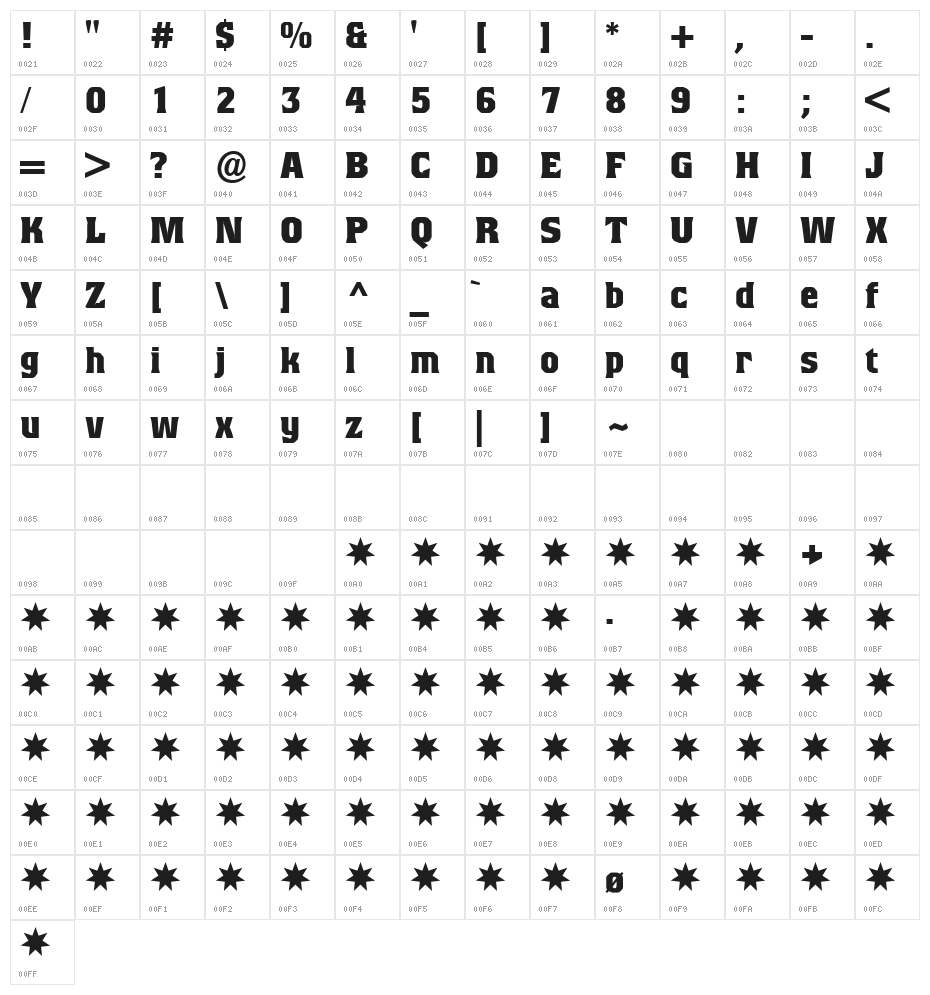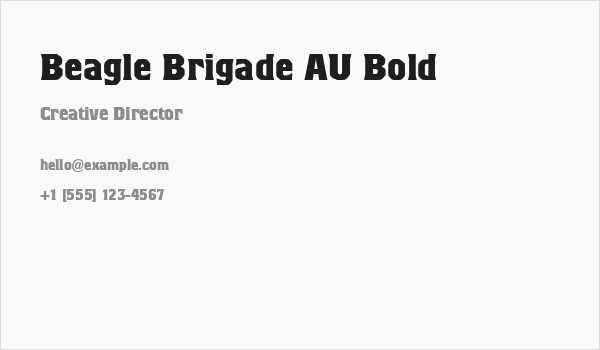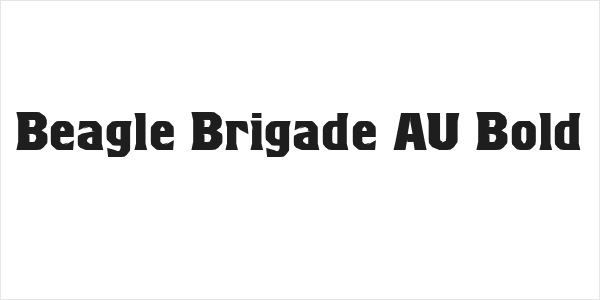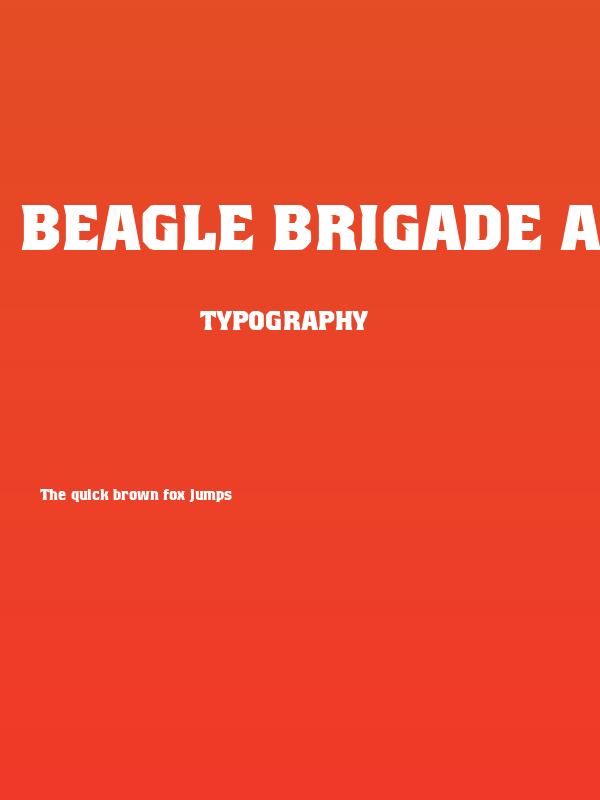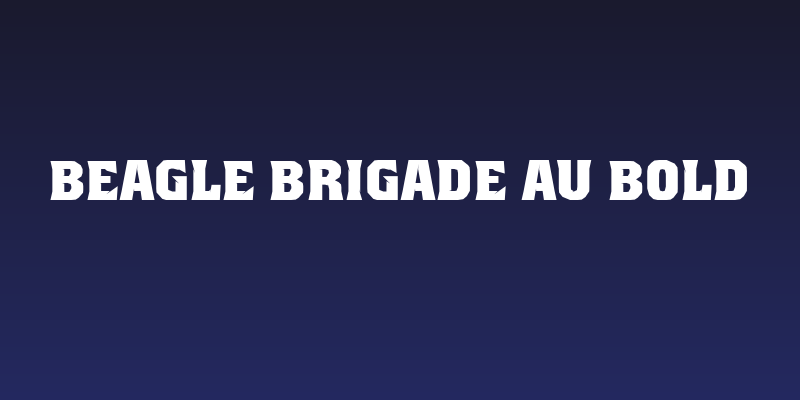
Beagle Brigade AU Bold Font
Beagle Brigade AU Bold Description
This bold and striking font features thick, angular lines with a strong presence. Each character is designed with a unique, slightly condensed style that gives it a robust and impactful appearance. The uppercase letters are particularly bold, with sharp edges and a geometric feel, while the lowercase letters maintain the same boldness with a slightly softer touch. Numbers and special characters are consistent with the overall bold and angular design, making them easily readable and visually appealing. The font's design is perfect for making a statement, with its high contrast and distinctive style.